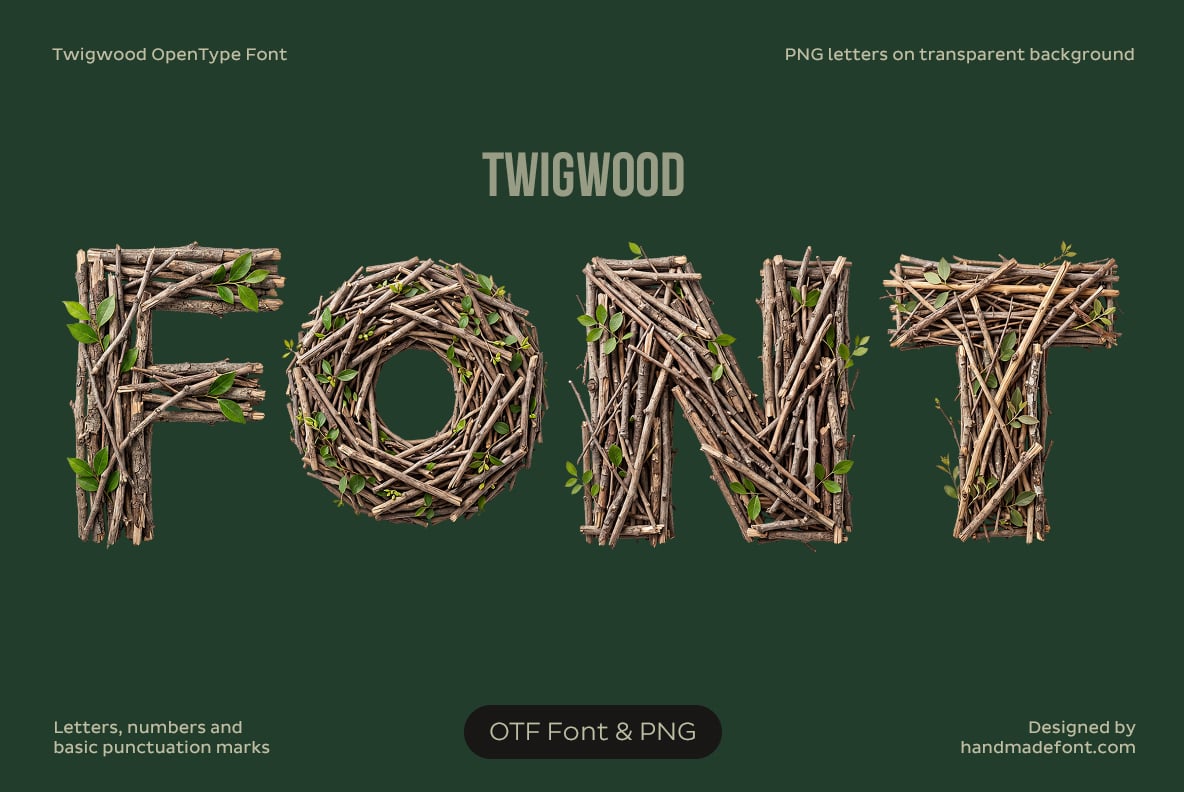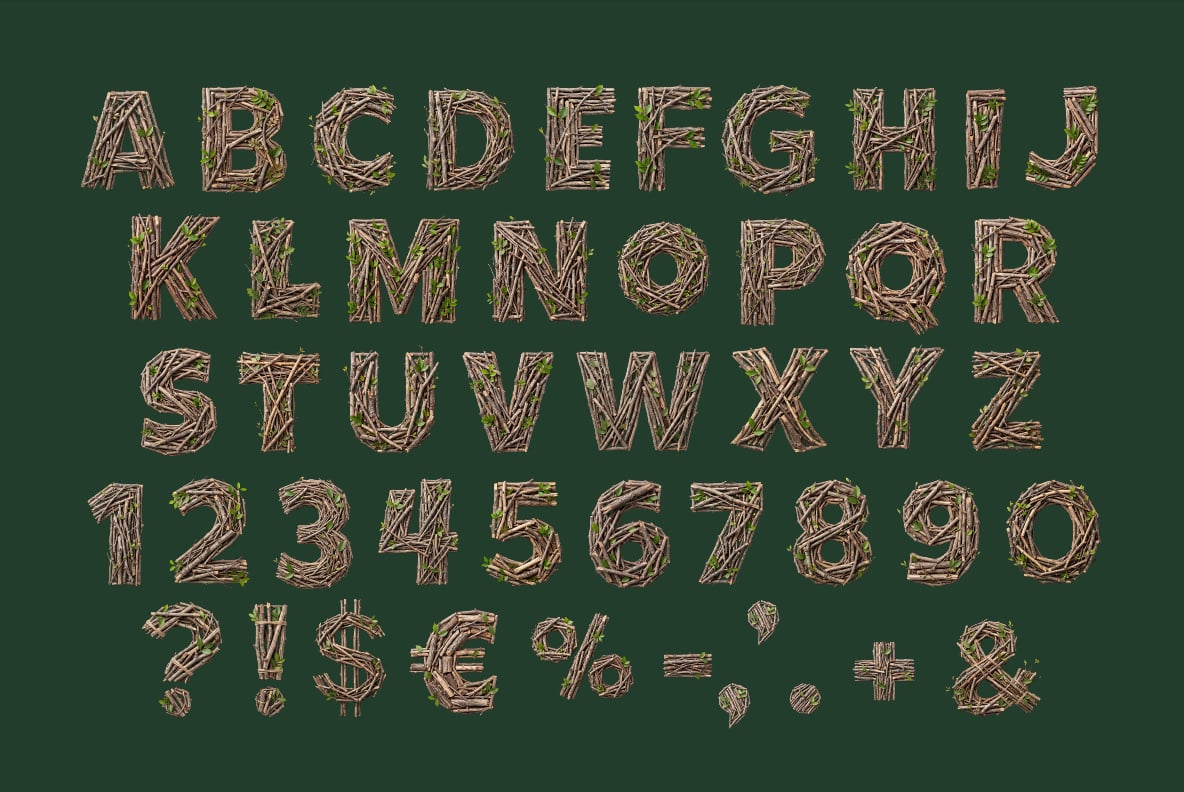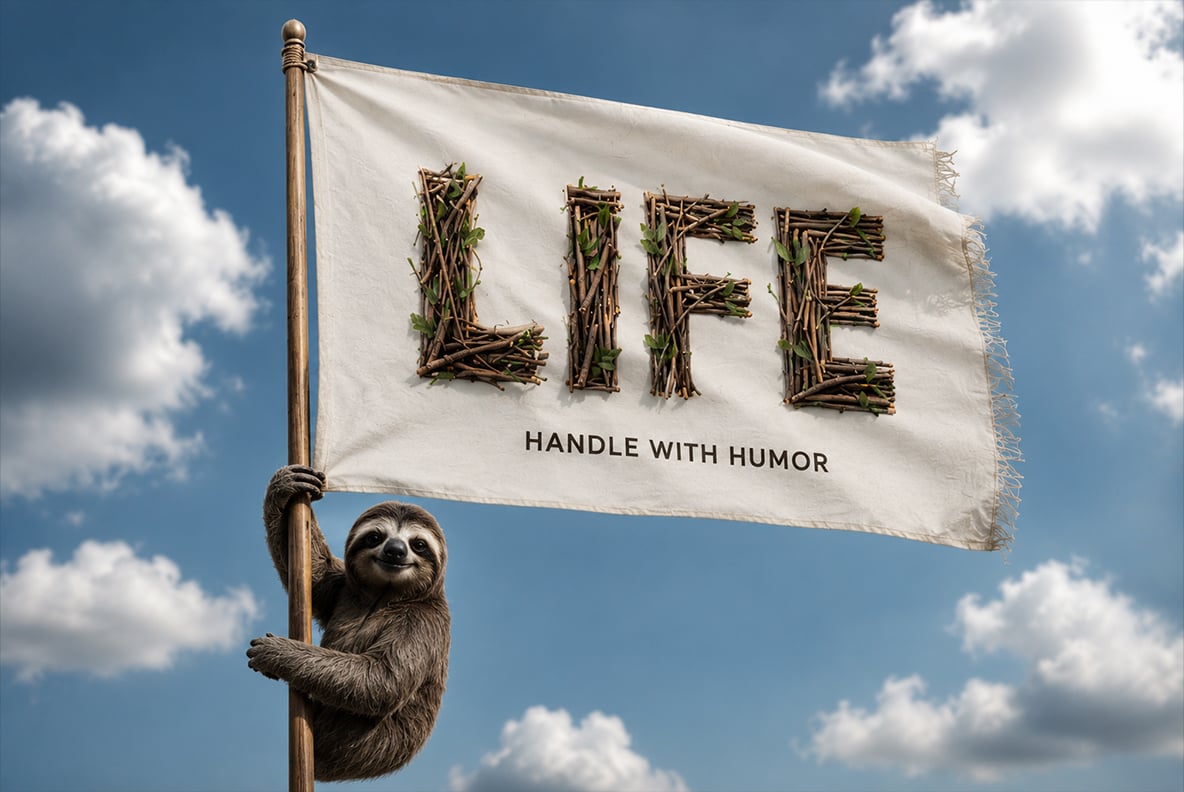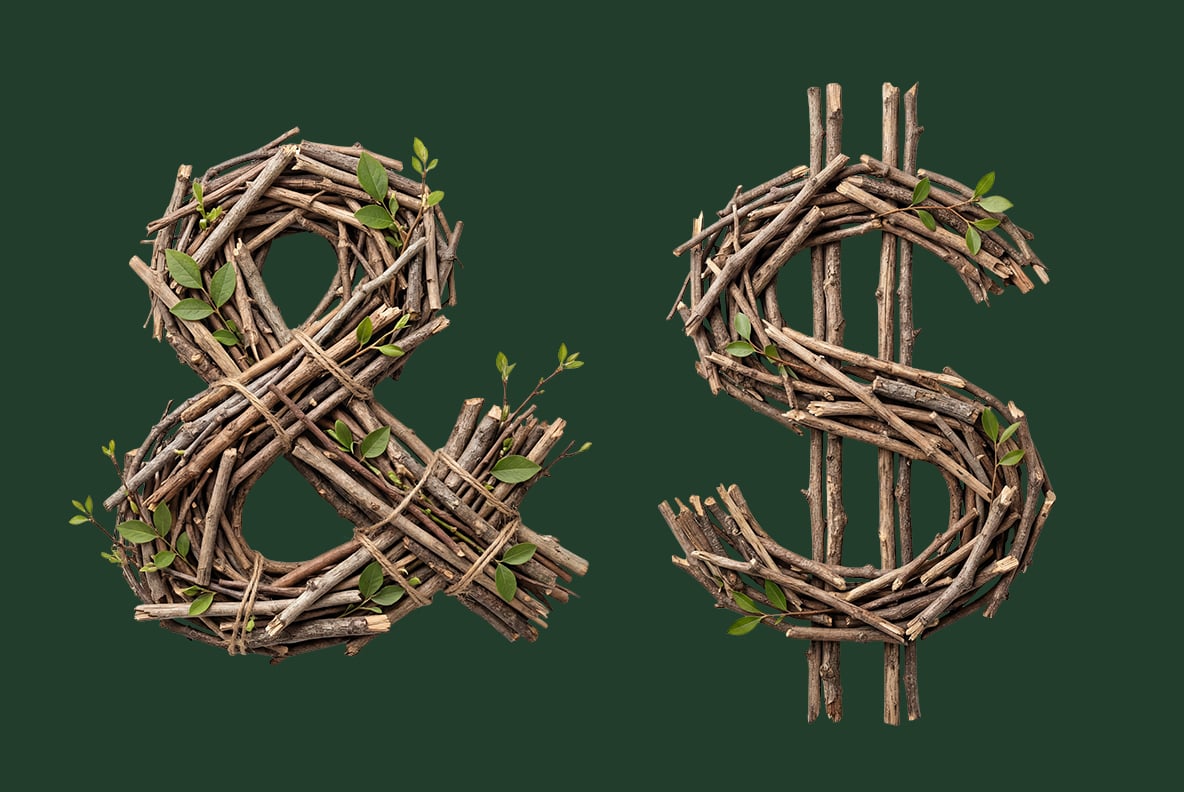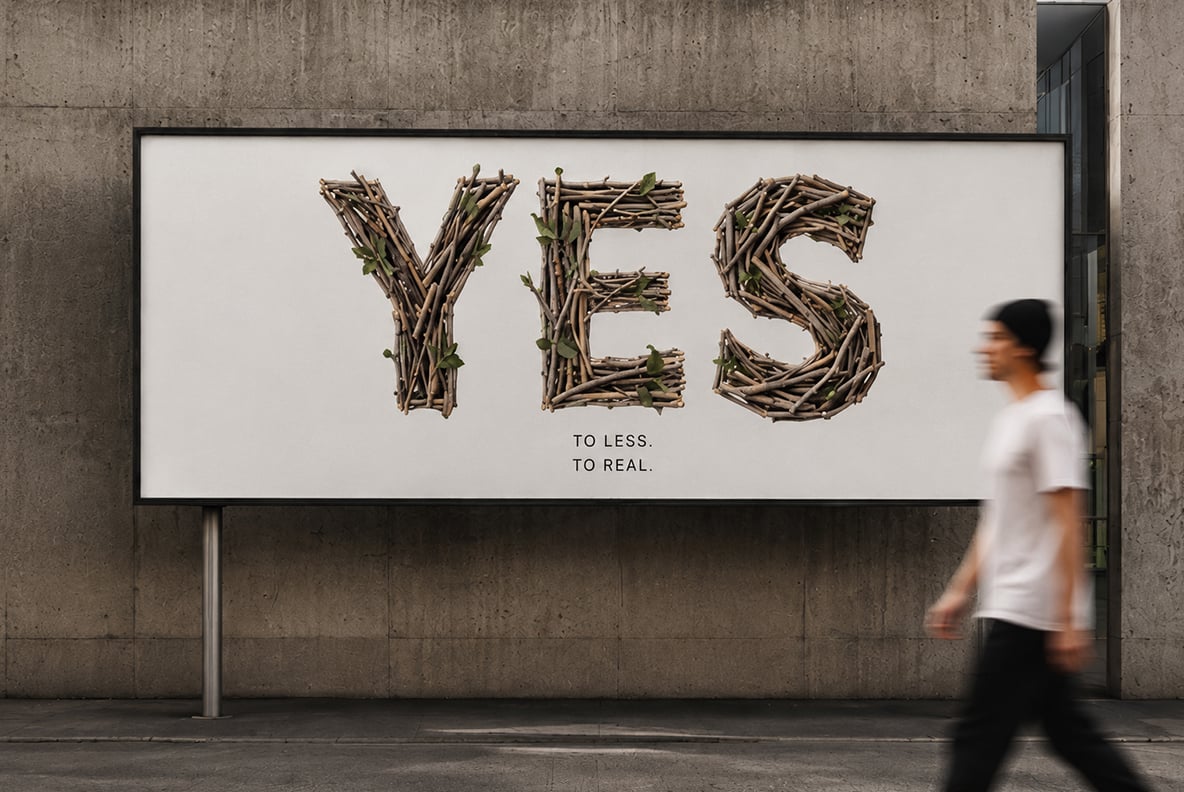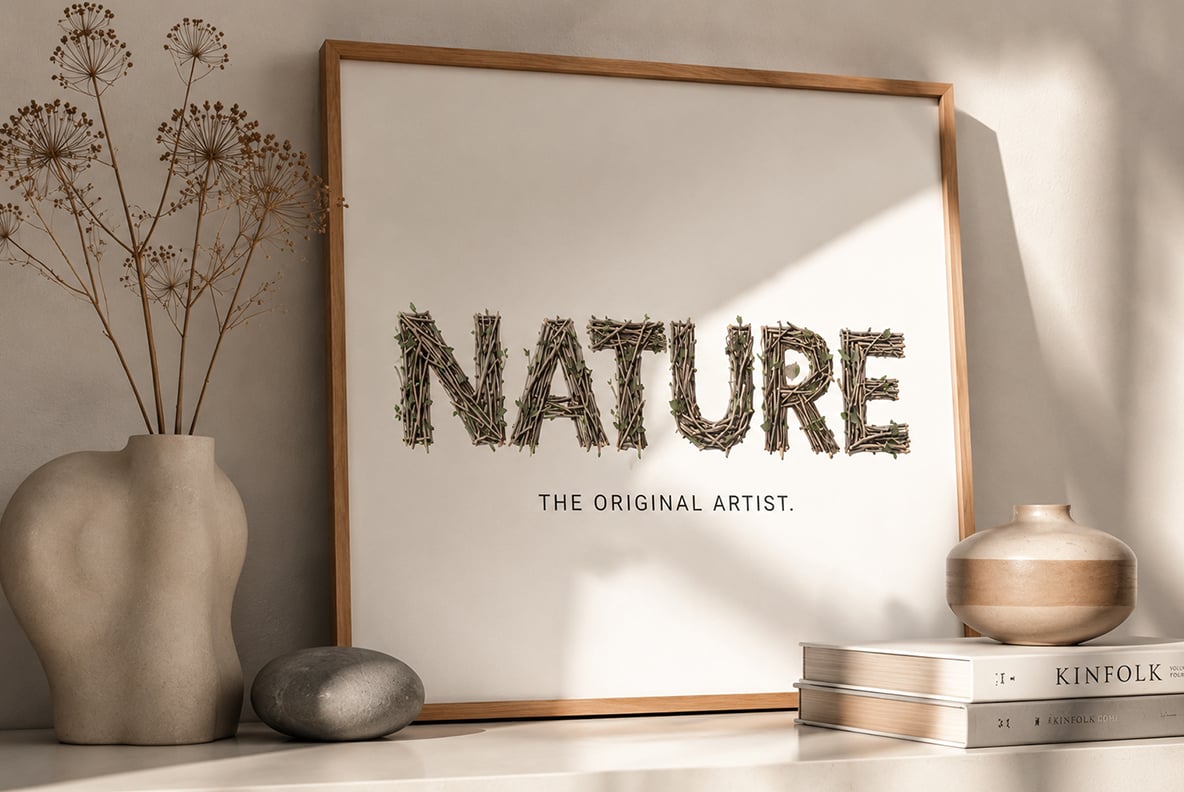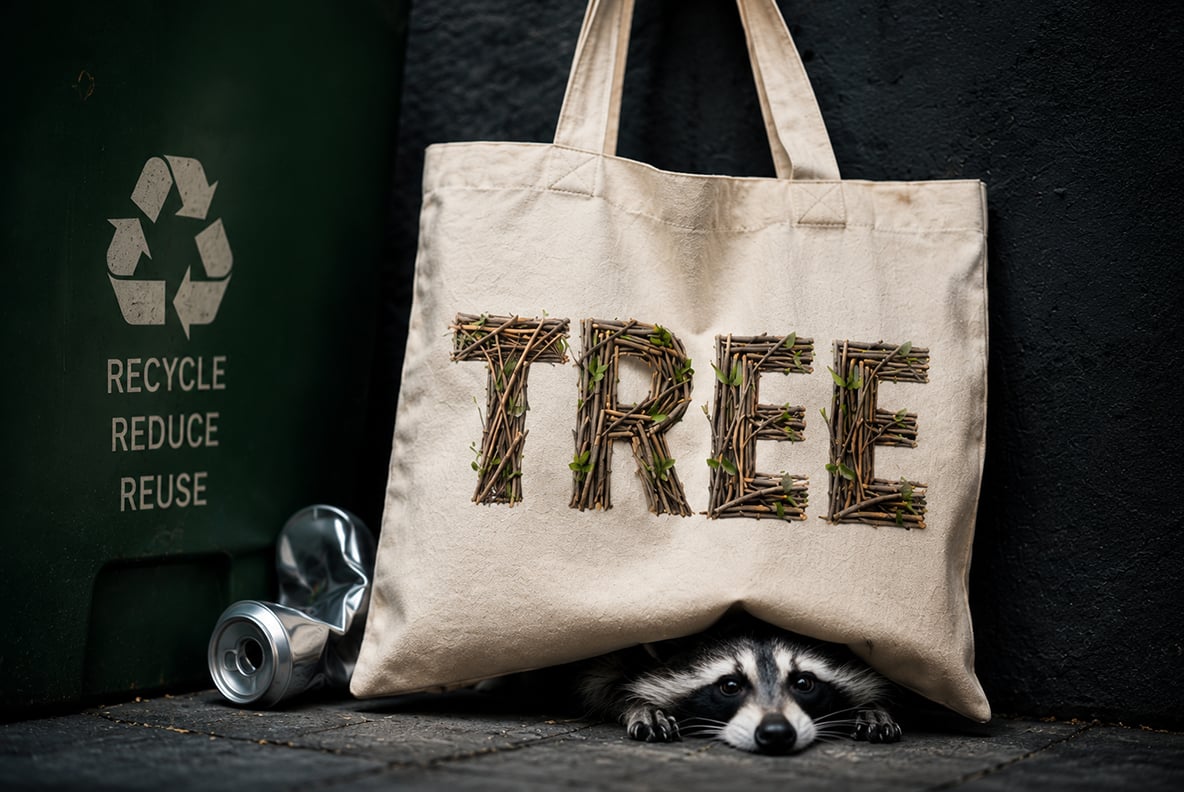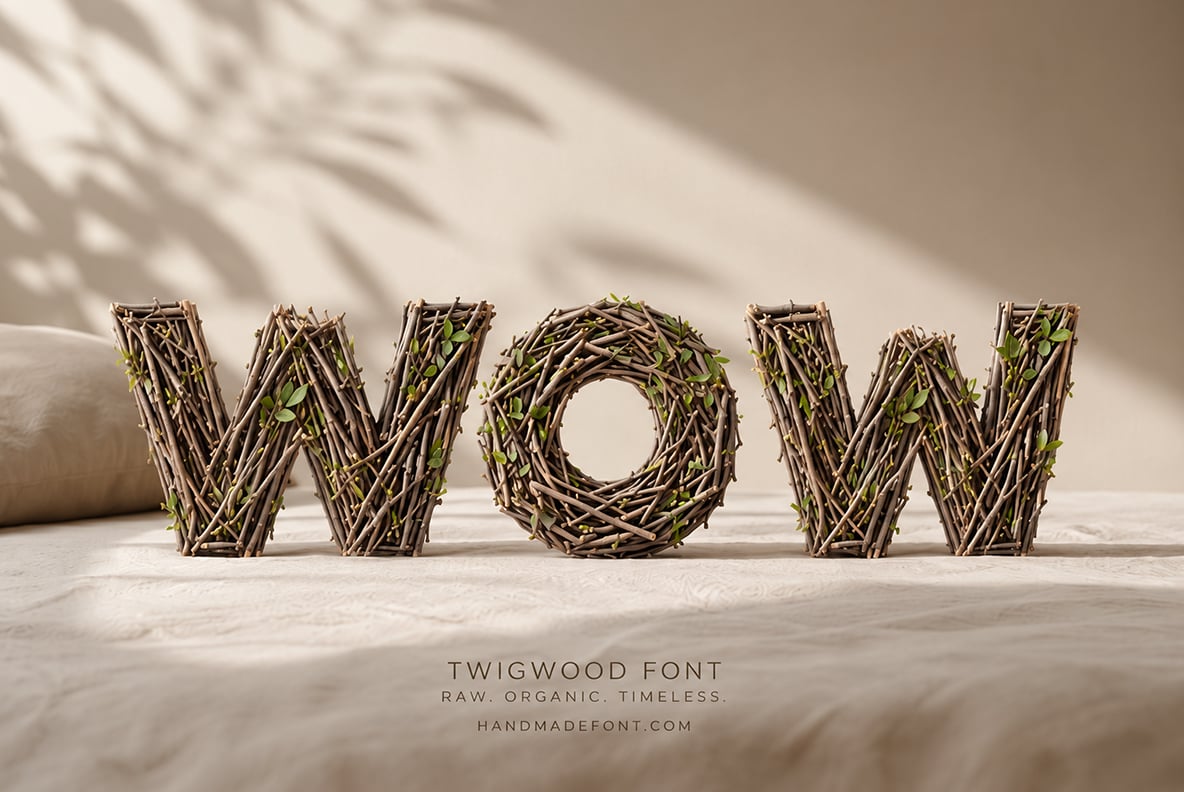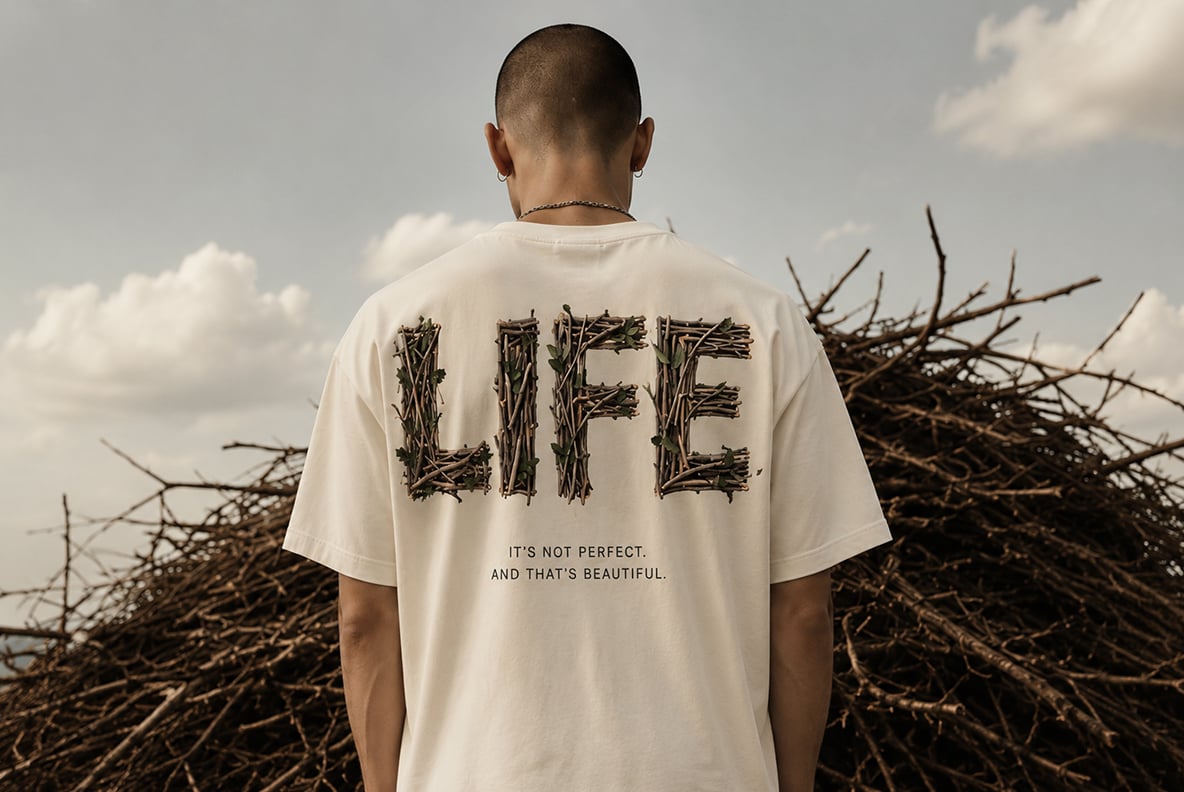
Twigwood Font
Twigwood Font is a handcrafted OpenType (OTF) typeface inspired by intertwined branches, forest textures, and natural craftsmanship. Every character is carefully built from realistic twigs, creating an organic, rustic look that feels both authentic and contemporary. Perfect for branding, packaging, posters, book covers, invitations, outdoor themes, eco-friendly products, seasonal campaigns, and creative editorial projects, Twigwood adds warmth and personality to every design. The package includes the complete OTF font for effortless typing, plus every letter, number, and symbol as individual high-resolution PNG files with transparent backgrounds, giving designers maximum flexibility for custom layouts, compositions, logos, and eye-catching visual artwork.